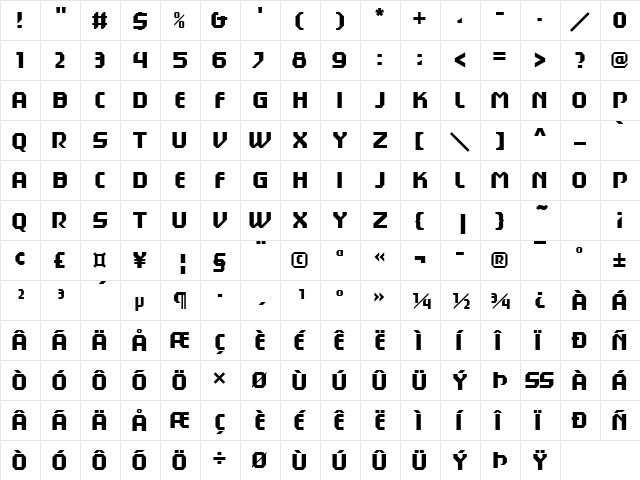
Dex Gothic Becker Solid Regular
Design Context for Dex Gothic Becker Solid Typeface
Dex Gothic Becker Solid has the quiet confidence of well-executed sans-serif typography: versatile, unobtrusive, and dependable at any size.
Font Pairing: Works well alongside a characterful serif or display font that can carry the expressive load while Dex Gothic Becker Solid handles the functional copy.
Pro Tip: Use Dex Gothic Becker Solid for UI labels, navigation, and short-form body copy where clean legibility is the priority.